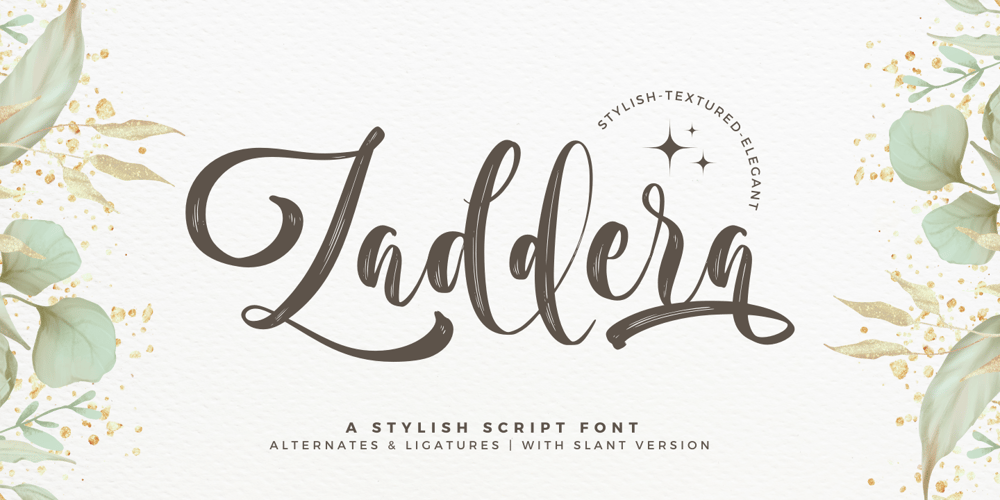
Zaddera Font Family was designed by Ainun Jinan and published by Jinan Studio. Zaddera contains 2 styles and family package options. Zaddera is a stylish script font with luxury, stylish, and elegant characteristics. Its ornate and decorative style makes it a great choice for wedding invitation design, event signs, and other design projects that require a touch of sophistication and romance.Alternative options, ligatures, and slant versions can provide a variety of looks for each letter, allowing you to customize and personalize the text to achieve the desired look.